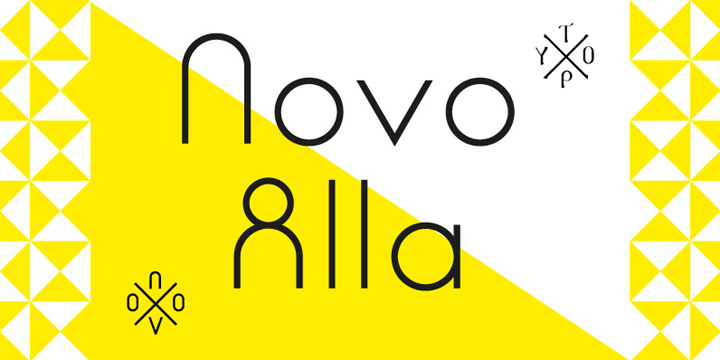
NT Novo Font is perfect for a wide range of design applications including cutting-edge technology branding, futuristic interface designs, innovative startup logos, modern corporate identity materials, progressive web applications, contemporary packaging solutions, forward-thinking editorial layouts, digital platform graphics, advanced software interfaces, and next-generation product presentations.
What makes NT Novo Font exciting is its revolutionary approach to modern typography that perfectly captures the essence of technological innovation and forward-thinking design philosophy. This groundbreaking typeface brings a sense of digital sophistication and contemporary excellence to any project with its precisely engineered letterforms that showcase advanced geometric principles and cutting-edge aesthetic sensibilities. The font's refined character shapes and progressive proportions create an atmosphere of technological advancement and design innovation that resonates with audiences seeking modernity, precision, and future-oriented solutions, making it an ideal choice for brands emphasizing innovation, digital transformation, and next-generation thinking.
The NT Novo Font family includes multiple weights and styles designed to accommodate various contemporary and technological design requirements. The collection typically features regular, bold, light, and condensed variations, each maintaining the font's signature modern aesthetic while providing comprehensive design flexibility. Additional technical characters and contemporary symbols enhance the family's creative potential for technology-focused design projects.
This premium NT Novo Font Free Download represents an exceptional opportunity for designers to explore contemporary typography trends with authentic technological appeal. The font's innovative approach incorporates advanced design principles and modern interface standards that bring genuine digital sophistication to current technology and corporate projects. Its versatile nature makes it suitable for both digital applications and print materials, ensuring consistent brand representation across technology, corporate, and innovation sectors.
Professional designers appreciate NT Novo Font's exceptional modernity and comprehensive character support. The font includes extensive punctuation marks, numerical figures, technical symbols, and international language capabilities, making it perfect for global technology brands and international innovation projects. Its precisely calibrated spacing and kerning ensure professional results in digital interfaces, branding, and contemporary communication applications.
The growing recognition of NT Novo Font in the technology community reflects its ability to enhance brand innovation and create memorable visual experiences that celebrate cutting-edge design and technological advancement. Whether used for tech startup branding, software interface design, or contemporary creative projects, this font delivers outstanding results that honor the spirit of digital innovation and modern design excellence.